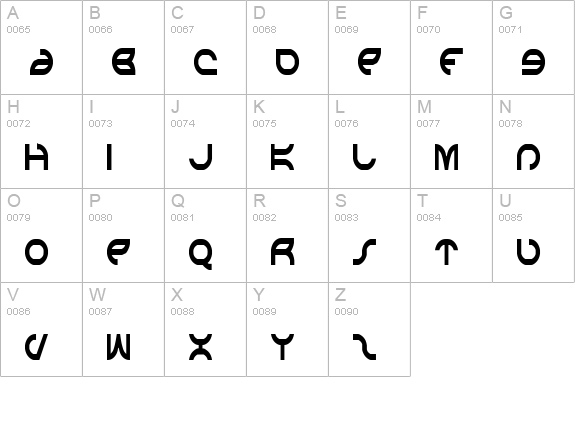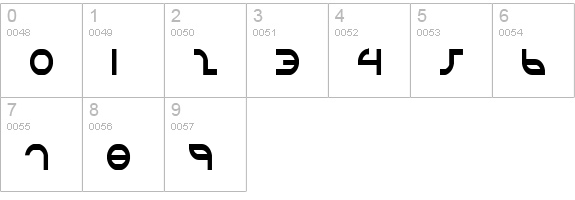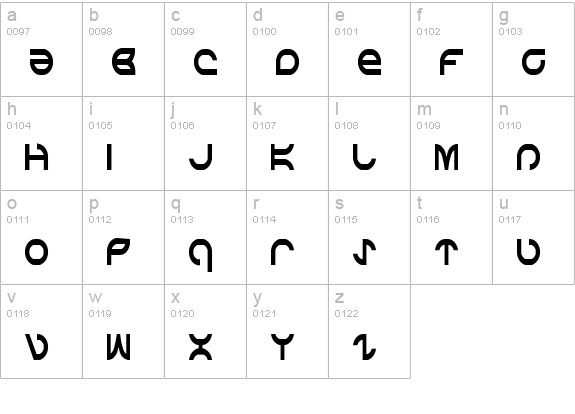
Aetherfox Condensed Font Details
Aetherfox Condensed is a distinctive, condensed-width variant in the Aetherfox typeface family \xE2\x80\x94 well suited to design and typography projects.
Aetherfox Condensed is a sleek and modern sans-serif font that exudes elegance and sophistication. Its clean lines and condensed design make it perfect for a wide range of design projects, from branding to editorial design. The unique letterforms of Aetherfox Condensed give it a distinctive and eye-catching appeal that will make your projects stand out. And the best part? Aetherfox Condensed is available for free download at FontsMarket.com! This means you can easily add this stunning font to your collection without any cost. Whether you're a designer looking for a new go-to font or a hobbyist experimenting with typography, Aetherfox Condensed is a versatile and stylish choice that won't break the bank. Download it today and elevate your designs with this exceptional typeface.